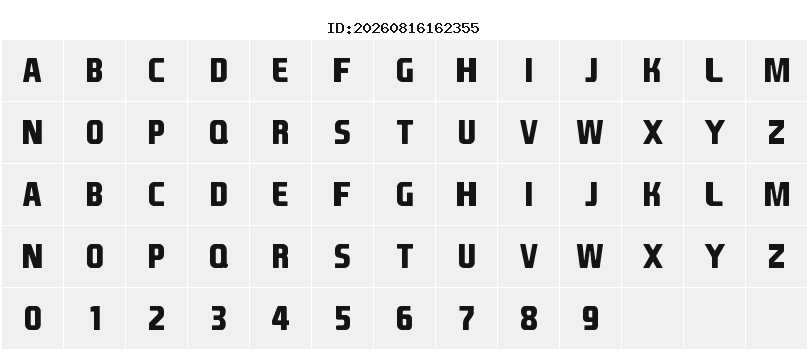
Sports EA Sports Preview
• Font Name: Sports EA Sports
• Full Font Name: Sports EA Sports
• Version: Version 1.10 February 14, 2015
About Sports EA Sports.ttf
Sports EA Sports.ttf is a modern, elegant sans-serif font designed for ultimate readability and visual harmony. Perfect for branding, headlines, web design, and print materials.